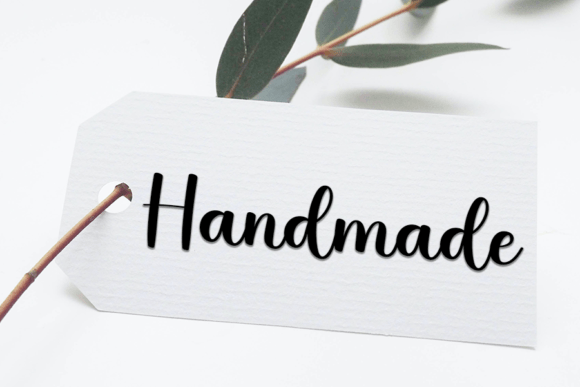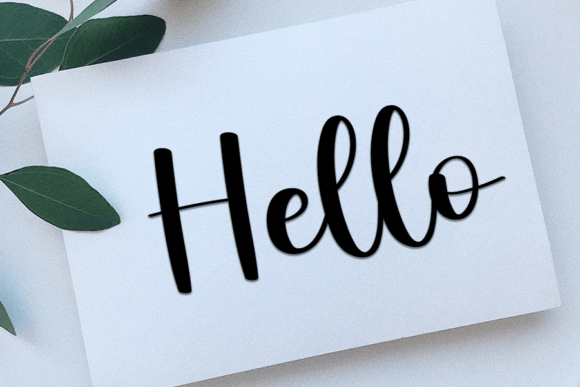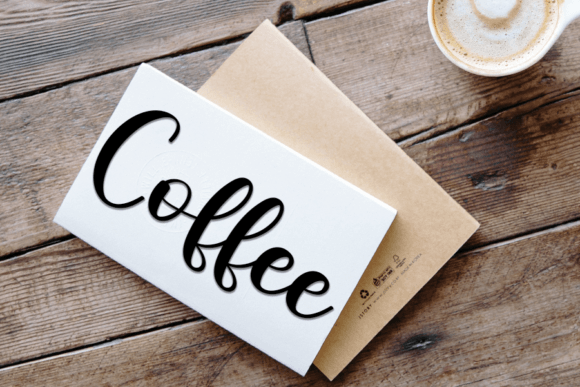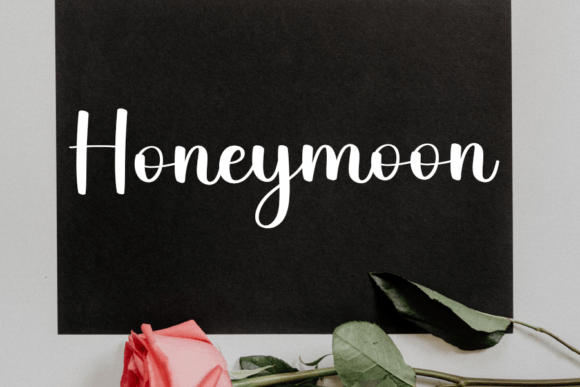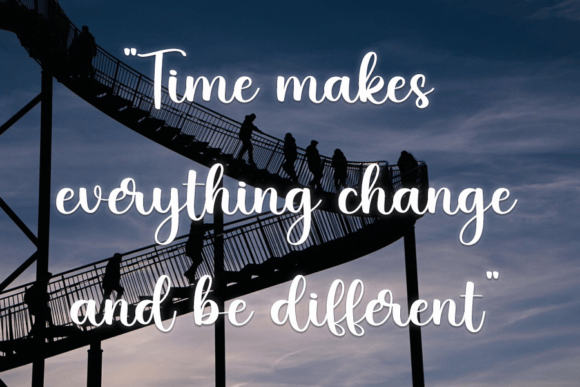
Introducing Class Font: Elevate Your Designs with Elegance and Sophistication
In the world of typography, a font can make all the difference in the aesthetic and overall feel of a design. For those seeking a unique and beautiful script font to elevate their creative projects, look no further than Class Font. This stunning font is versatile, elegant, and perfect for a wide range of applications, from crafts and digital design to presentations and greeting cards.
What Makes Class Font Stand Out?
Class Font is a script font that exudes sophistication and class, making it an ideal choice for designers and crafters who want to add a touch of elegance to their work. Its unique and beautiful letterforms are carefully crafted to provide a distinctive look that sets it apart from other fonts. Whether you’re working on a digital project or a physical craft, Class Font has the potential to become your go-to font for any occasion.
Perfect for Various Creative Projects
One of the standout features of Class Font is its versatility. It’s suitable for a wide range of creative projects, including:
- Crafts: Add a touch of elegance to your handmade crafts, such as cards, scrapbooking, and DIY projects.
- Digital Design: Use Class Font in your digital designs, including social media graphics, blog posts, and website headers.
- Presentations: Elevate your presentations with a sophisticated font that will leave a lasting impression on your audience.
- Greeting Cards: Create beautiful and unique greeting cards for special occasions, such as birthdays, weddings, and holidays.
Why Choose Class Font?
With so many fonts available, why choose Class Font? Here are just a few reasons why designers and crafters love this font:
- Unique and Beautiful: Class Font features unique and beautiful letterforms that will add a touch of elegance to any design.
- Versatile: Suitable for a wide range of creative projects, from crafts to digital design.
- Easy to Read: Despite its elegant and sophisticated feel, Class Font is easy to read, making it perfect for body text and headlines.
- High-Quality: Class Font is a high-quality font that will ensure your designs look professional and polished.
Tips for Using Class Font
To get the most out of Class Font, here are a few tips to keep in mind:
- Experiment with Sizes: Class Font looks great in a variety of sizes, from large headlines to smaller body text.
- Pair with Other Fonts: Try pairing Class Font with other fonts to create a unique and interesting contrast.
- Use for Headlines and Titles: Class Font is perfect for headlines and titles, where its elegant and sophisticated feel can really shine.
In conclusion, Class Font is a unique and beautiful script font that is perfect for designers and crafters looking to add a touch of elegance and sophistication to their creative projects. With its versatility, high-quality design, and ease of use, Class Font has the potential to become your go-to font for any occasion. Whether you’re working on a craft project, digital design, presentation, or greeting card, Class Font is sure to impress.